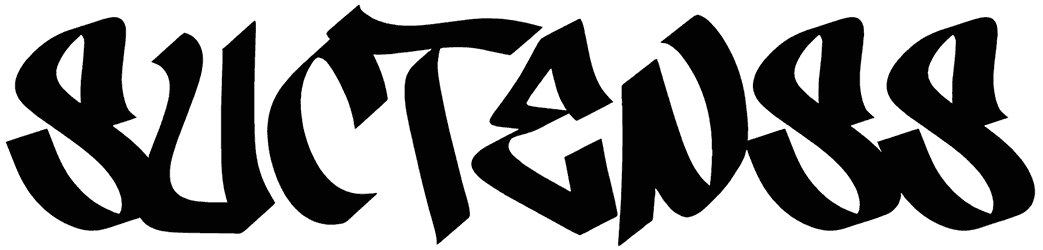
Suctenss Font
What’s your creative idea? A street art layout? Well, this graffiti font wanna be what you need to make it cool. The characters of Suctenss font are natural, and with a dripping effect like our splatter textures, your final design will be mesmerizing. No lowercase, no numbers, but still a unique item for many projects.